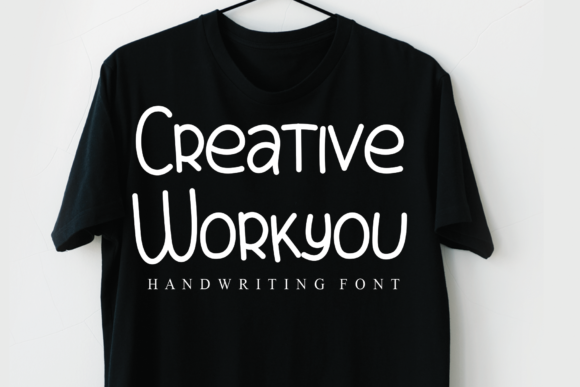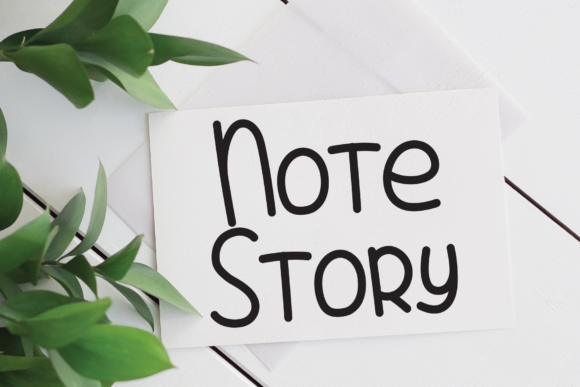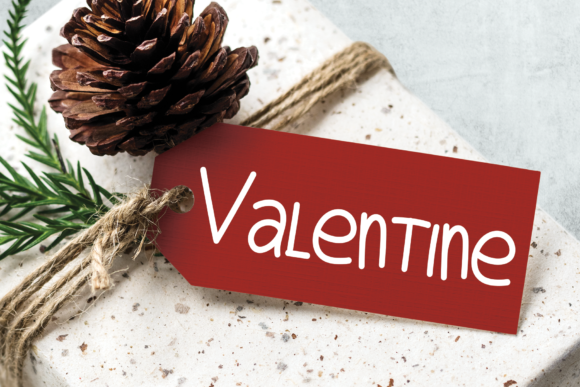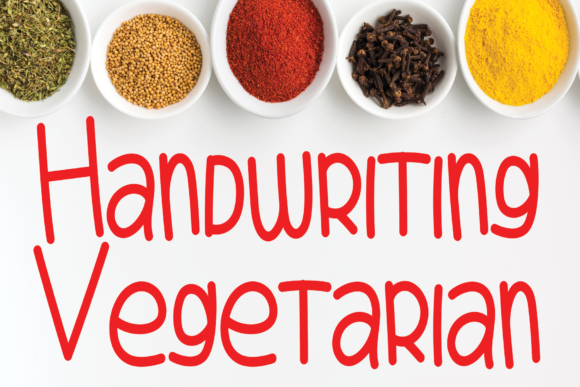
School Smart Font
About School Smart Font
School Smart is a simple, quirky and natural handwritten font. It can easily be matched to an incredibly large set of projects, so add it to your creative ideas and notice how it makes them stand out!